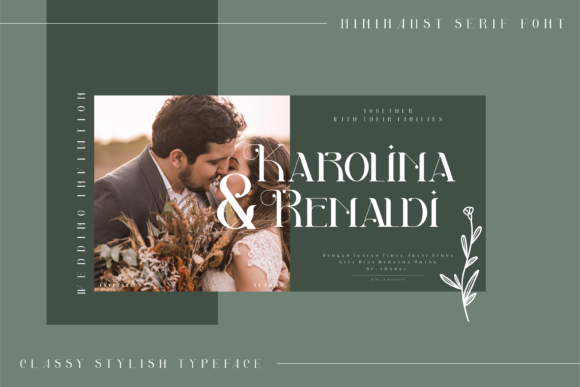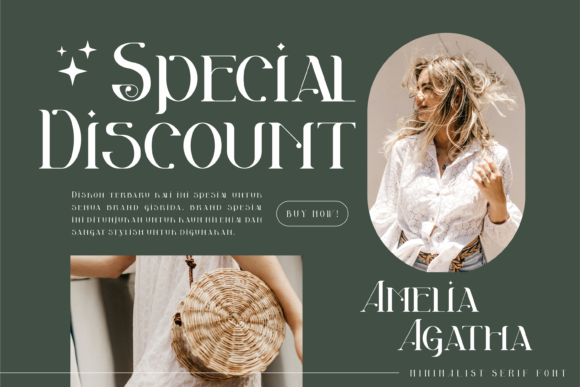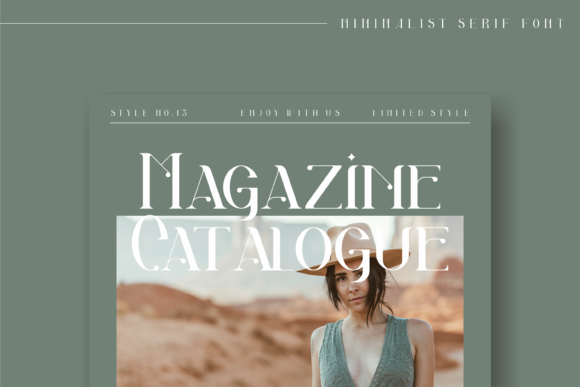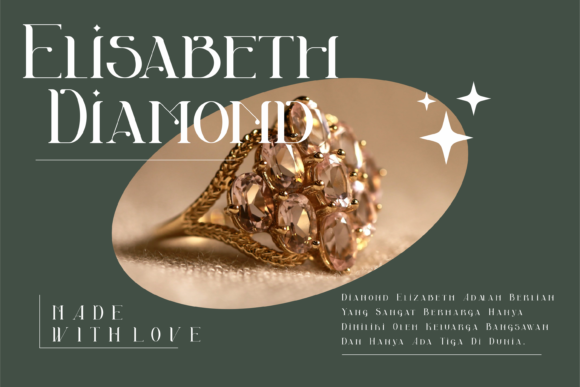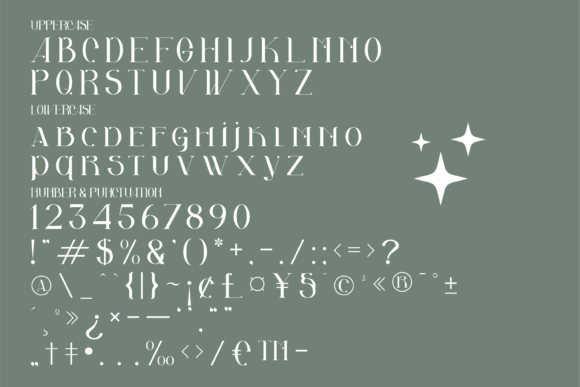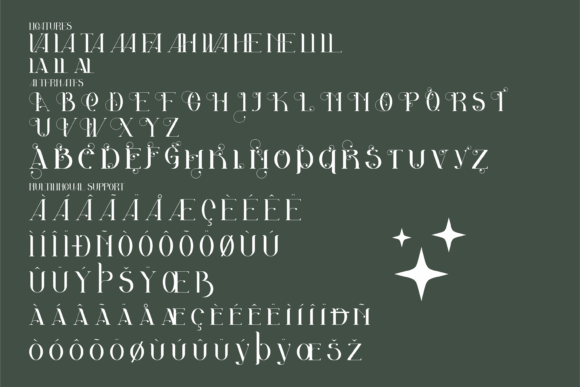
Introducing Akila Font: Elevate Your Designs with Luxury and Sophistication
Are you looking for a font that can add a touch of elegance and sophistication to your design projects? Look no further than Akila Font, a luxurious and detailed serif font that is sure to make your designs stand out. With its intricate details and classic charm, Akila Font is the perfect choice for designers and crafters who want to create stunning visual content.
What Makes Akila Font Special?
Akila Font is a beautifully crafted serif font that boasts a range of impressive features. Its luxurious and detailed design makes it perfect for use in high-end branding, advertising, and marketing materials. The font’s classic charm and timeless appeal ensure that it will never go out of style, making it a valuable addition to any designer’s font library.
One of the standout features of Akila Font is its PUA (Private Use Area) encoding. This means that you can access all of the font’s amazing glyphs and ligatures with ease, giving you the flexibility to create complex and visually appealing designs. With PUA encoding, you can unlock the full potential of Akila Font and take your designs to the next level.
Perfect for a Range of Design Projects
Akila Font is a versatile font that can be used in a wide range of design projects. Whether you’re creating a logo, brochure, or social media graphics, Akila Font is the perfect choice. Its luxurious and sophisticated design makes it ideal for high-end branding and advertising, while its classic charm ensures that it will work well in more traditional design projects.
Why Choose Akila Font?
So why should you choose Akila Font for your design projects? Here are just a few reasons:
- Luxurious and detailed design: Akila Font boasts a beautifully crafted design that is sure to impress.
- PUA encoding: With PUA encoding, you can access all of the font’s glyphs and ligatures with ease.
- Classic charm: Akila Font’s timeless appeal ensures that it will never go out of style.
- Versatile: Akila Font can be used in a wide range of design projects, from branding and advertising to social media graphics and more.
Tips for Using Akila Font
Here are a few tips for getting the most out of Akila Font:
- Use it sparingly: Akila Font is a luxurious font, so use it sparingly to add emphasis and sophistication to your designs.
- Experiment with different sizes: Akila Font looks great in a range of sizes, from large headings to smaller body text.
- Pair it with other fonts: Akila Font pairs well with a range of other fonts, so don’t be afraid to experiment and find the perfect combination for your design.
In conclusion, Akila Font is a luxurious and detailed serif font that is sure to elevate your design projects. With its PUA encoding, classic charm, and versatile design, Akila Font is the perfect choice for designers and crafters who want to create stunning visual content. So why wait? Download Akila Font today and take your designs to the next level!